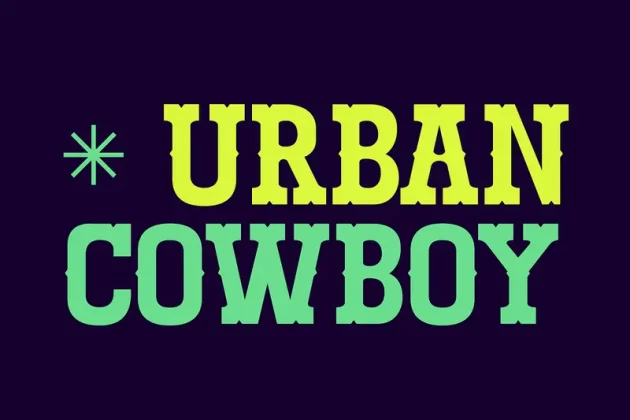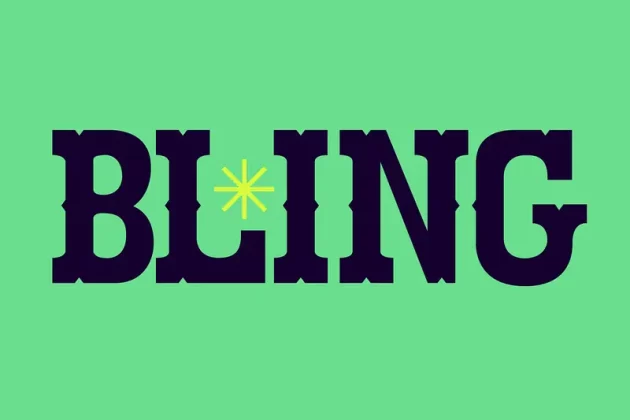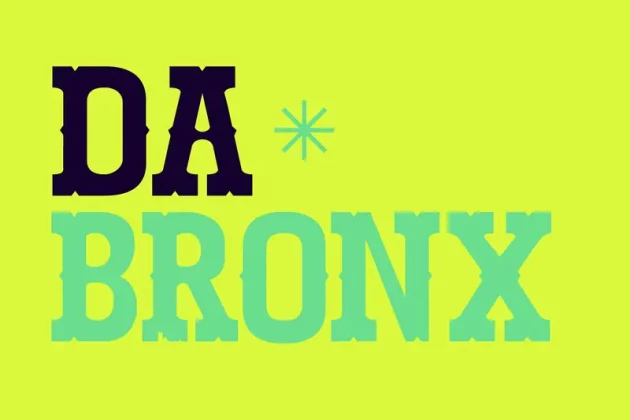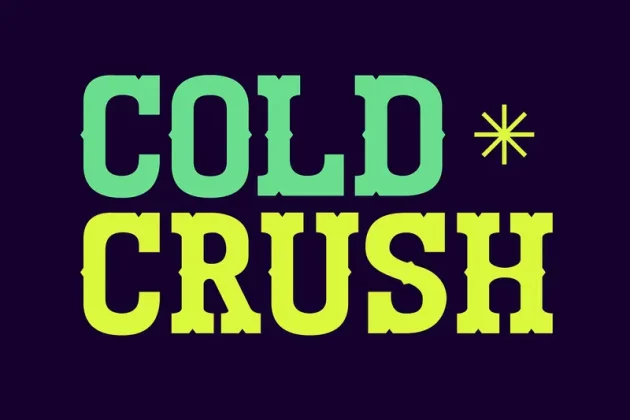
About Urban Cowboy Font
Urban Cowboy is a modern western styled typeface designed by Miguel Ibarra. It
was designed specifically for display and Headline purposes. The font contains
only all caps with alternate versions between ‘upper’ and ‘lower’ case.
Urban Cowboy is a fun and bold typeface, that has a combination of western slab
serifs with a modern ‘Tuscan’ form. Perfect for that western look, or for your bold
logotype.